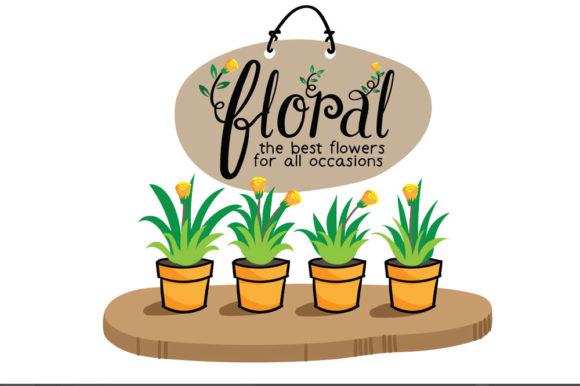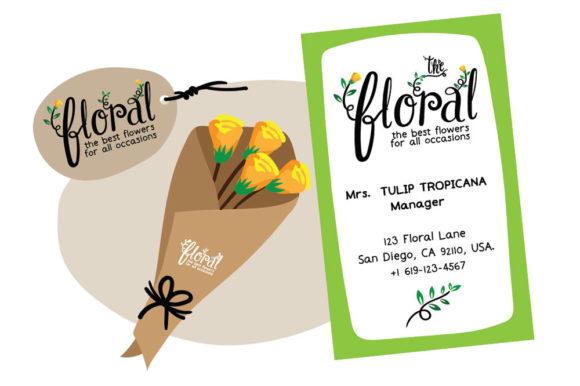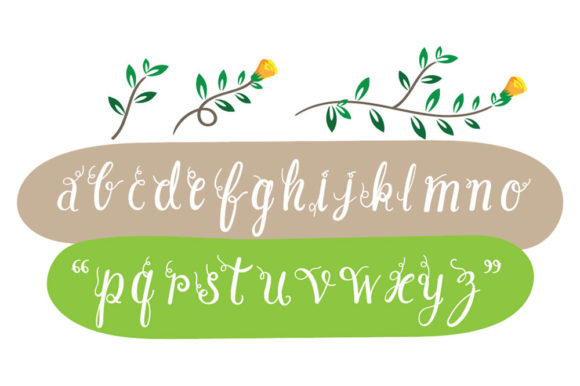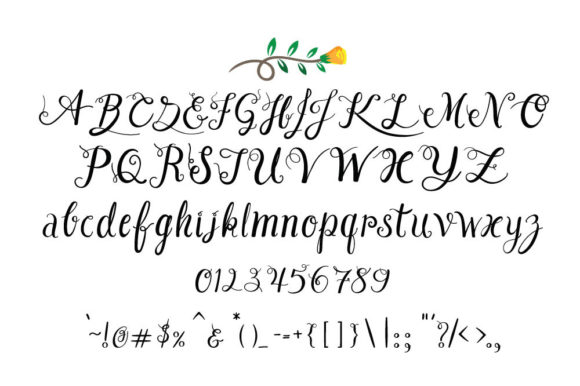
Introduction to Botani Fondi Font
Have you ever been in the midst of a creative project, staring at a blank page, and suddenly, the perfect font pops into your mind? It’s as if the universe has conspired to bring your vision to life. For designers, this moment is priceless, and the right font can make all the difference. One such font that has been making waves in the design community is the Botani Fondi Font.
This chic, refined script font exudes sophistication and elegance, making it the perfect match for any project. With its stylish alternates and ligatures, the Botani Fondi Font is a valuable resource for designers looking to add a touch of high-quality flair to their designs.
Key Features of Botani Fondi Font
- Unique, hand-drawn design for a creative project
- Perfect for designers, artists, and anyone seeking a distinctive font
- Comprehensive font family with various styles and weights
Honest Review: Botani Fondi Font
As a designer, I’m always on the lookout for high-quality design resources to elevate my creative projects. The Botani Fondi Font caught my attention, and I was excited to give it a try.
- High-quality design: The Botani Fondi Font has a unique and elegant design that’s perfect for various creative projects.
- Limited styles: While the font is high-quality, it’s available in a limited number of styles, which might not be suitable for all design projects.
- Not suitable for small text: The font’s design makes it challenging to read in small text sizes, which could be a limitation for certain design applications.
Overall, the Botani Fondi Font is a great design resource for designers who want to add a touch of elegance to their creative projects. While it has some limitations, its high-quality design and free download make it a valuable addition to any designer’s toolkit.
Common Use Cases for Botani Fondi Font
Botani Fondi Font is ideal for:
1. Creating transparent background designs, such as logos and icons.
2. Adding a touch of elegance to presentations and documents.
3. Designing creative projects that require a high-quality, unique font.
Alternatives to Botani Fondi Font
Pacifico is a high-quality, elegant script font perfect for creative projects that require a touch of sophistication. It’s ideal for use on invitations, wedding stationery, and other design elements that need a refined, handwritten look.
Pacifico is a great alternative to Botani Fondi Font as it offers a similar level of sophistication and elegance, but with a more refined, cursive feel. While Botani Fondi Font has a more rustic, natural look, Pacifico is better suited for more formal and high-end design projects.